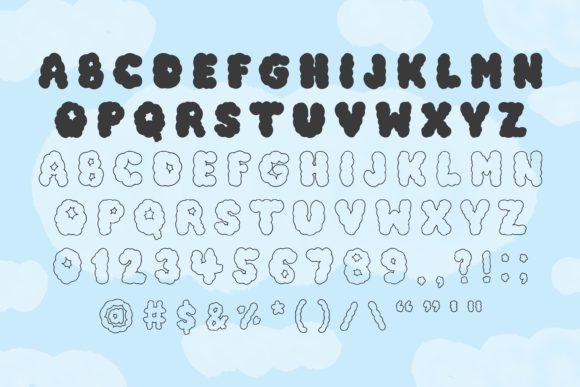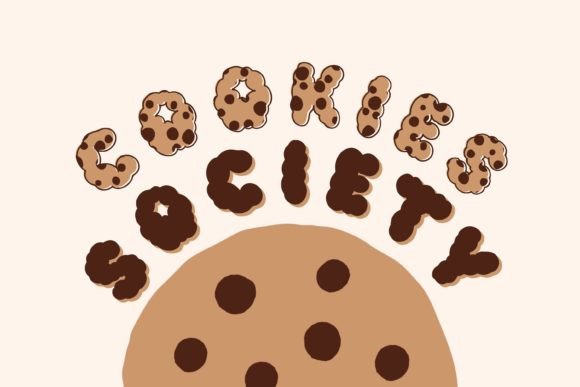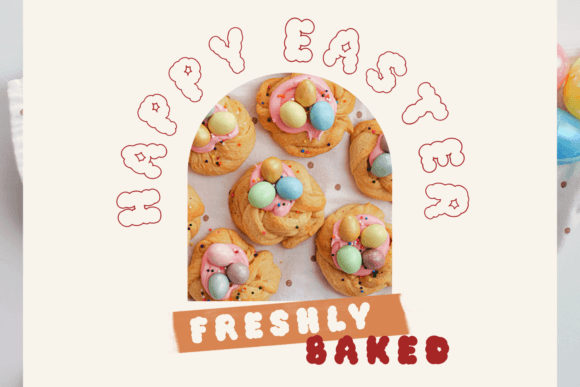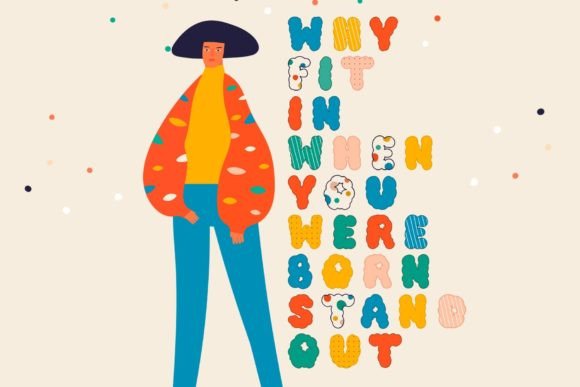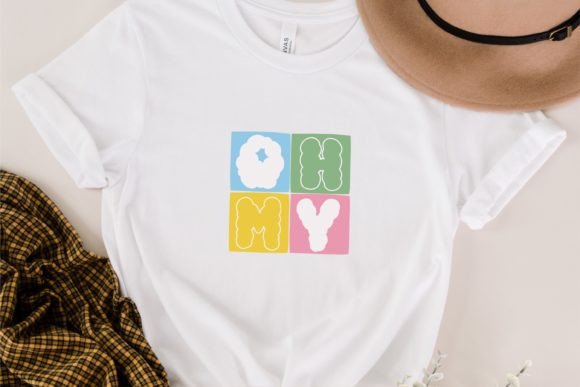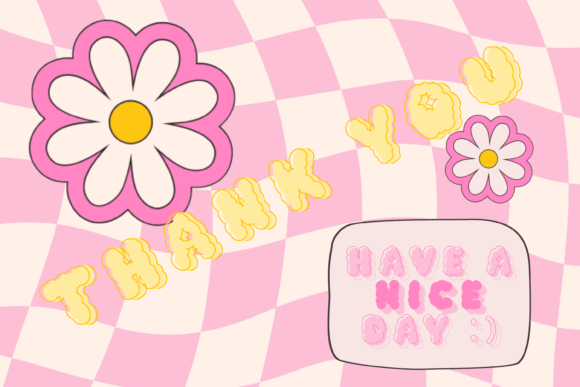
Introducing Cloudy Font: The Ultimate Cute and Fun All-Caps Hand-Drawn Font
Are you tired of using the same old fonts in your design projects? Look no further! Cloudy Font is here to add a touch of whimsy and fun to your creations. This adorable all-caps hand-drawn font is perfect for designers, crafters, and DIY enthusiasts who want to add a personal touch to their work.
What is Cloudy Font?
Cloudy Font is a unique and charming font that is sure to capture the hearts of anyone who lays eyes on it. With its hand-drawn design, this font exudes a sense of playfulness and friendliness, making it ideal for a wide range of projects. Whether you’re creating a blog post, logo, branding materials, digital planners, invitations, greeting cards, or photo albums, Cloudy Font is the perfect choice.
Features of Cloudy Font
- All-caps design: Cloudy Font is an all-caps font, which means you can use it to create bold and eye-catching headings and titles.
- Hand-drawn style: The font’s hand-drawn design gives it a personal and unique touch that’s perfect for adding a bit of whimsy to your designs.
- Cute and fun: Cloudy Font is undeniably cute and fun, making it perfect for projects that require a playful touch.
- Versatile: This font can be used in a wide range of projects, from digital designs to print materials.
Uses of Cloudy Font
Cloudy Font is an incredibly versatile font that can be used in various projects, including:
- Blog posts: Add a touch of personality to your blog posts with Cloudy Font. Use it to create bold headings, titles, and even pull quotes.
- Logos and branding: Create a memorable brand identity with Cloudy Font. Its unique design makes it perfect for logos, business cards, and other branding materials.
- Digital planners: Add a bit of fun to your digital planners with Cloudy Font. Use it to create headings, titles, and even decorative elements.
- Invitations and greeting cards: Make your invitations and greeting cards stand out with Cloudy Font. Its playful design is sure to delight your friends and family.
- Planners and photo albums: Use Cloudy Font to add a personal touch to your planners and photo albums. Its cute design makes it perfect for scrapbooking and other craft projects.
- Decorations: Cloudy Font can even be used to create decorative elements, such as banners, garlands, and other DIY decorations.
Tips for Using Cloudy Font
Here are a few tips for getting the most out of Cloudy Font:
- Use it sparingly: While Cloudy Font is undeniably cute, it’s best to use it sparingly to avoid overwhelming your design. Use it for headings, titles, and other key elements.
- Pair it with other fonts: Cloudy Font pairs well with other fonts, such as sans-serif fonts or script fonts. Experiment with different pairings to find the perfect combination for your design.
- Experiment with colors: Cloudy Font looks great in a variety of colors. Experiment with different colors to find the perfect shade for your design.